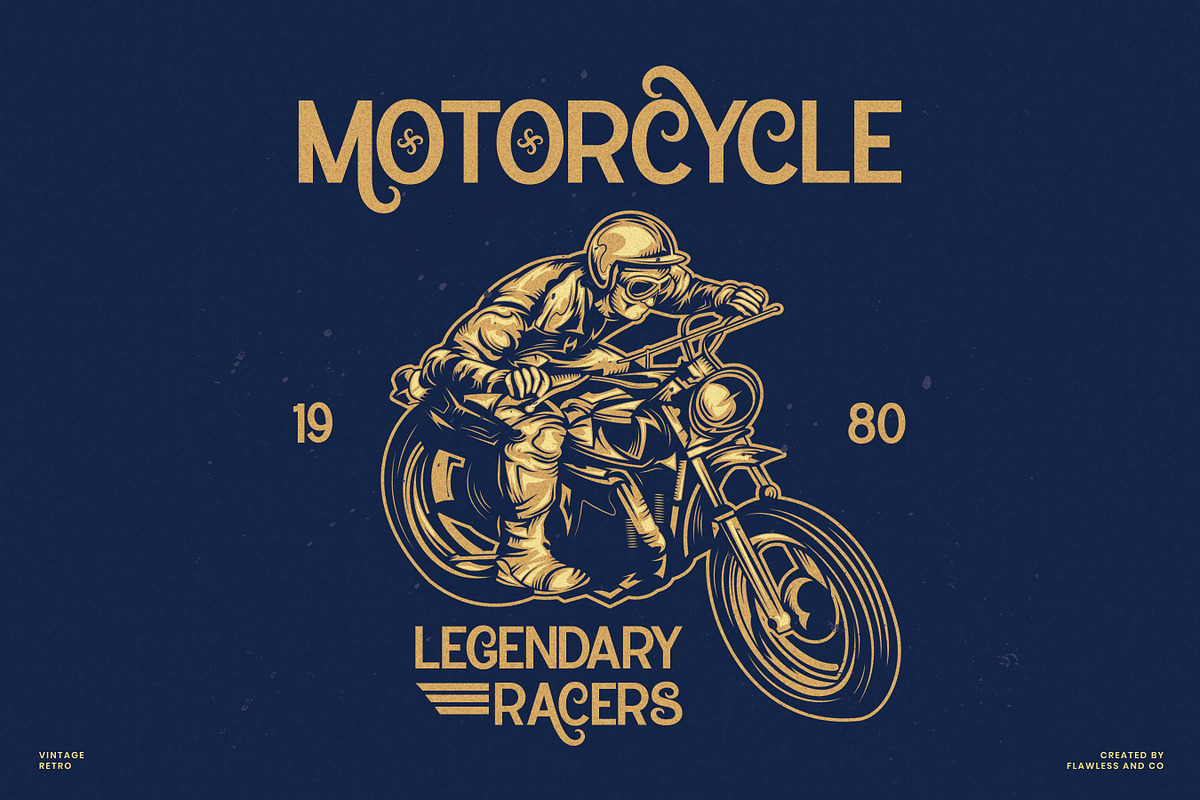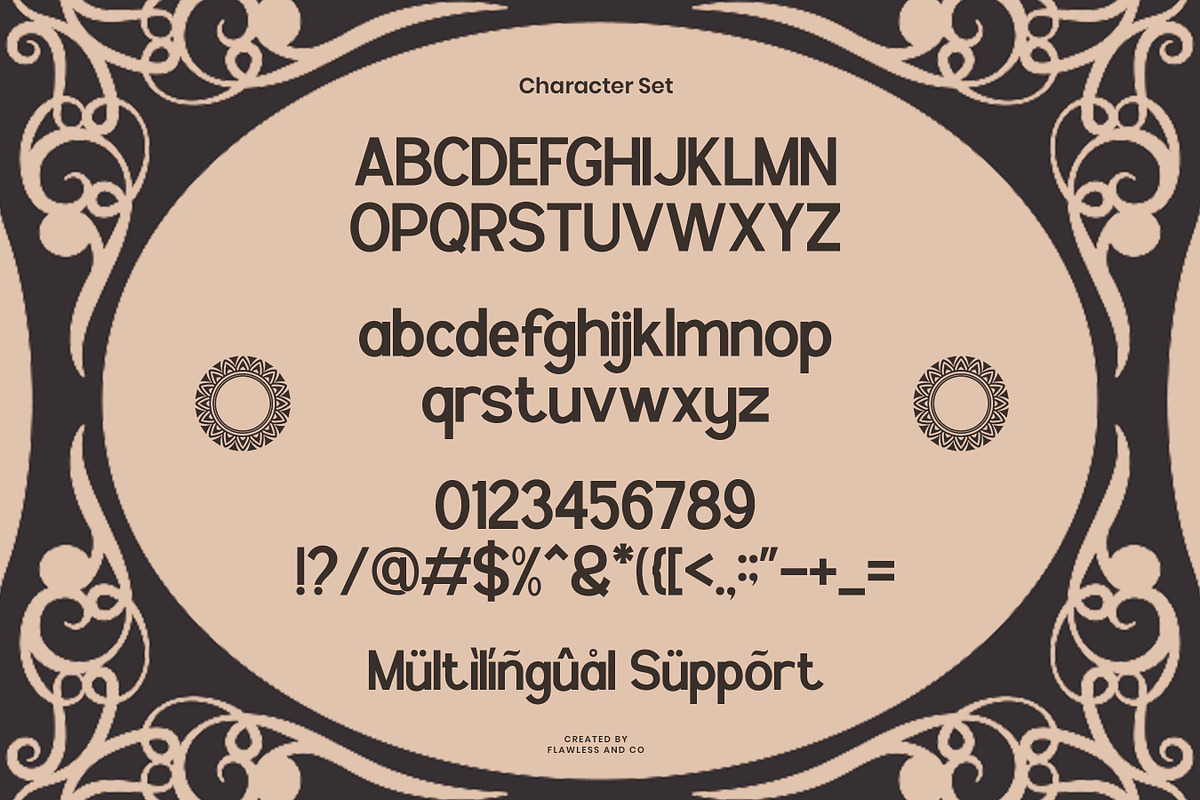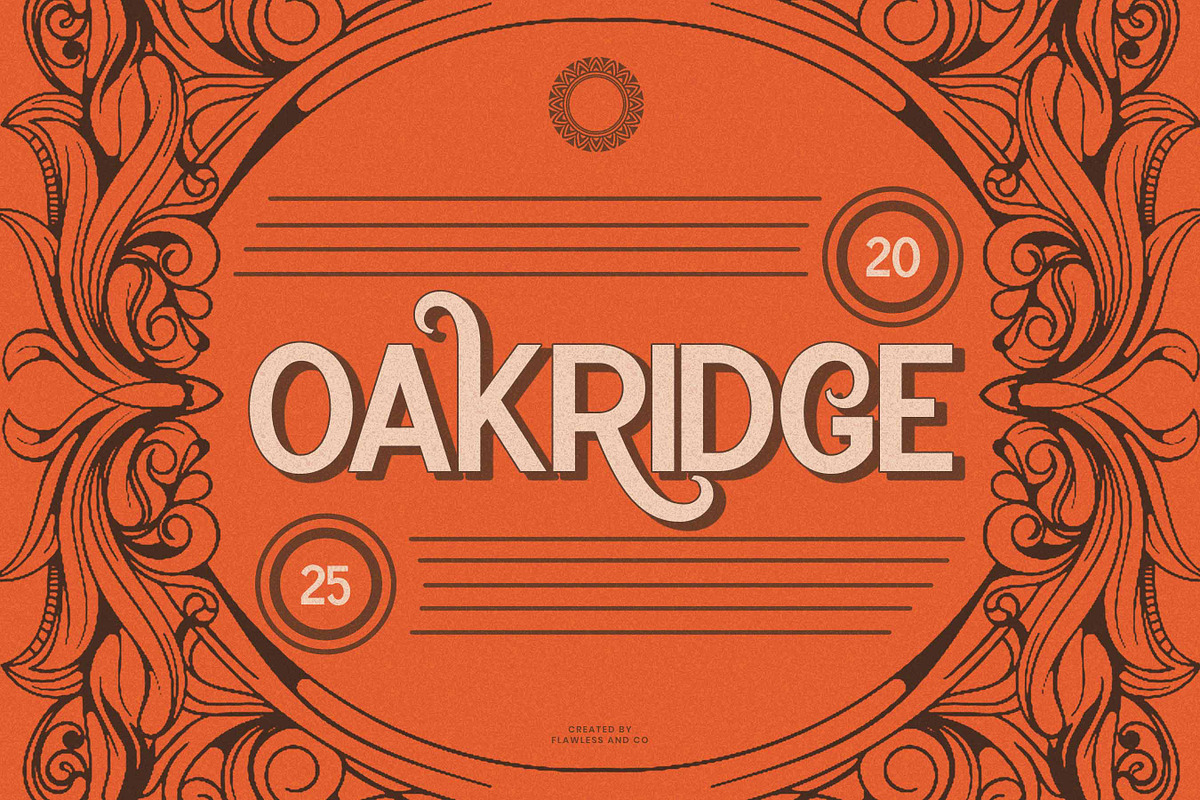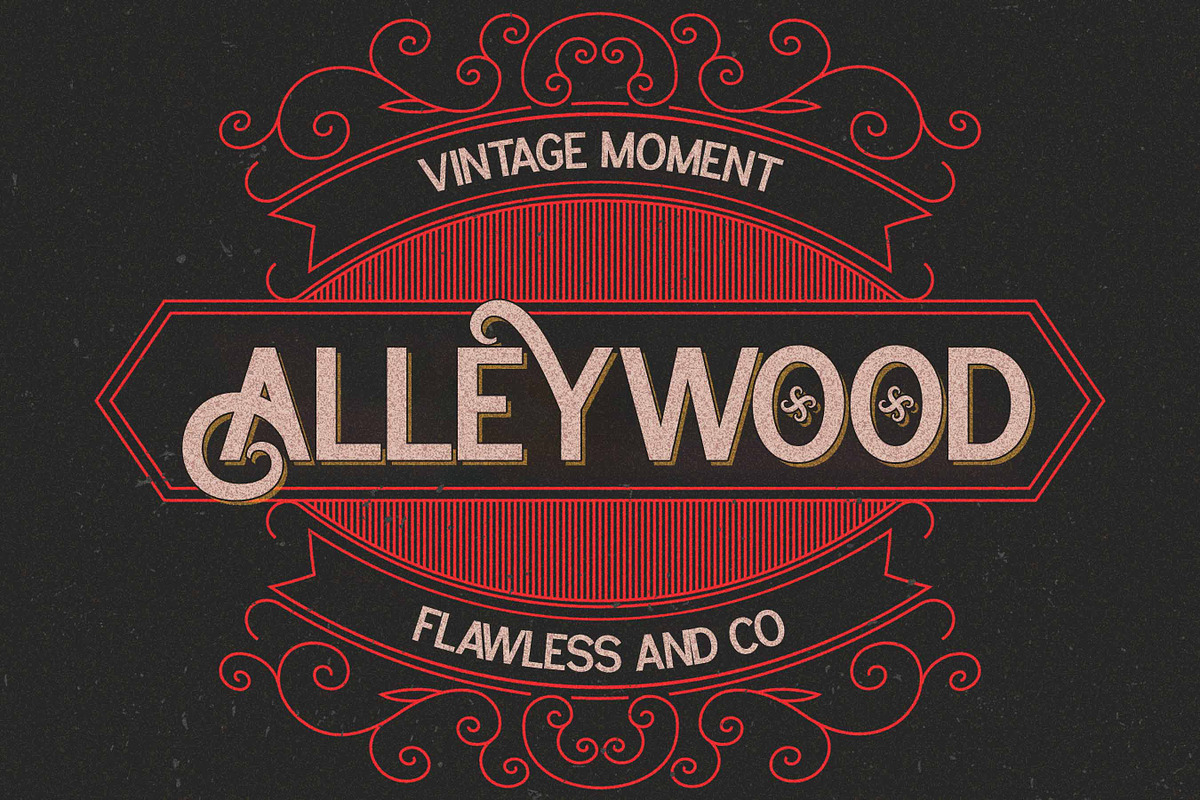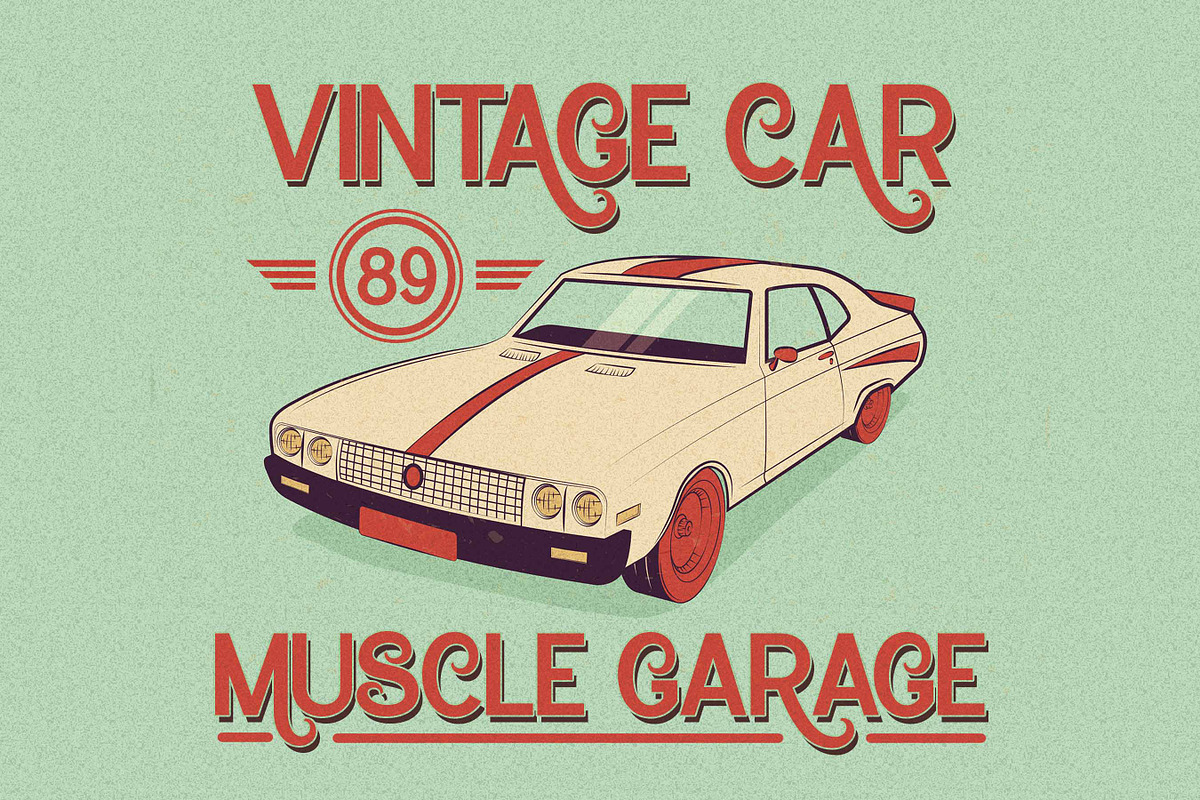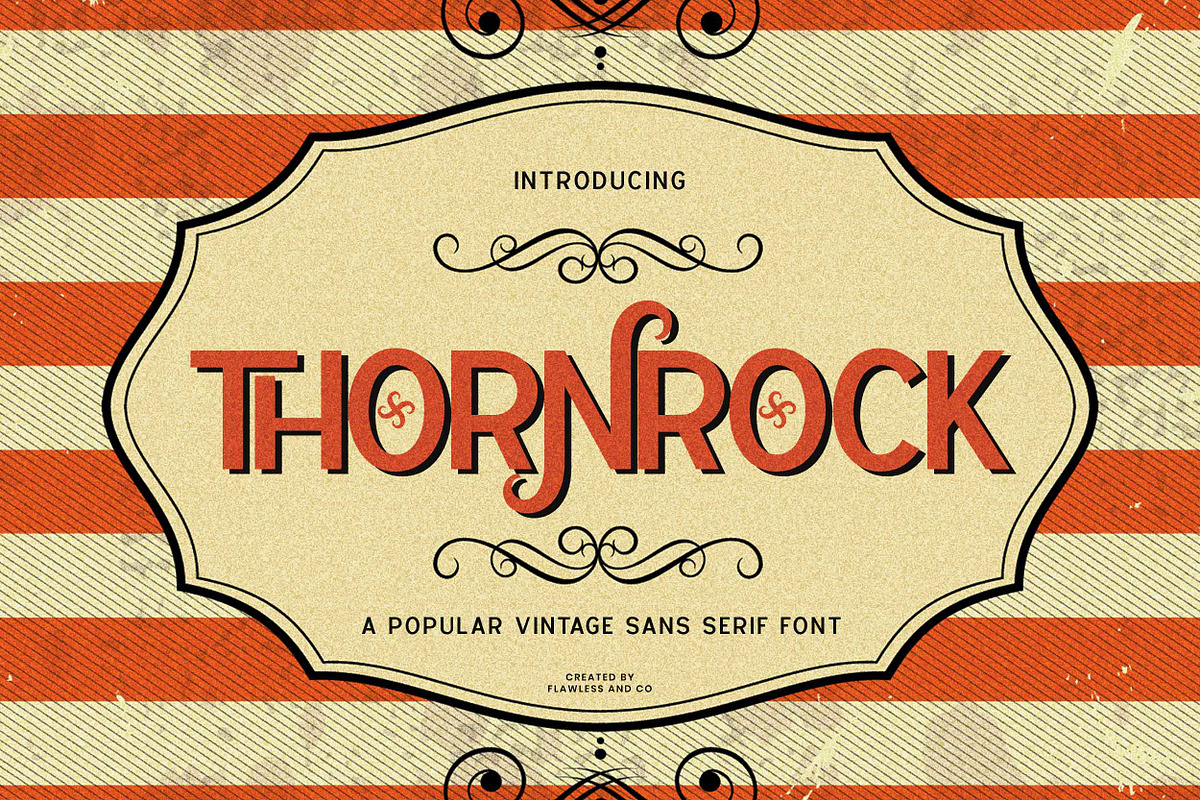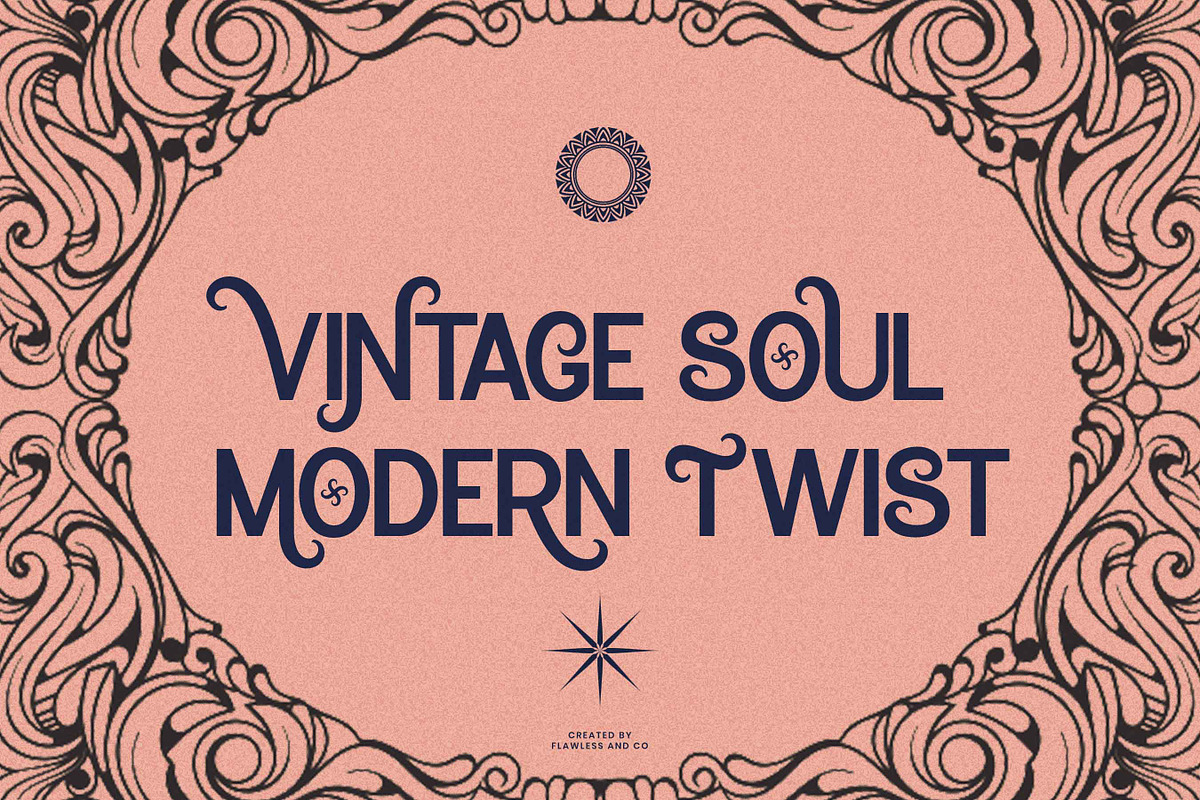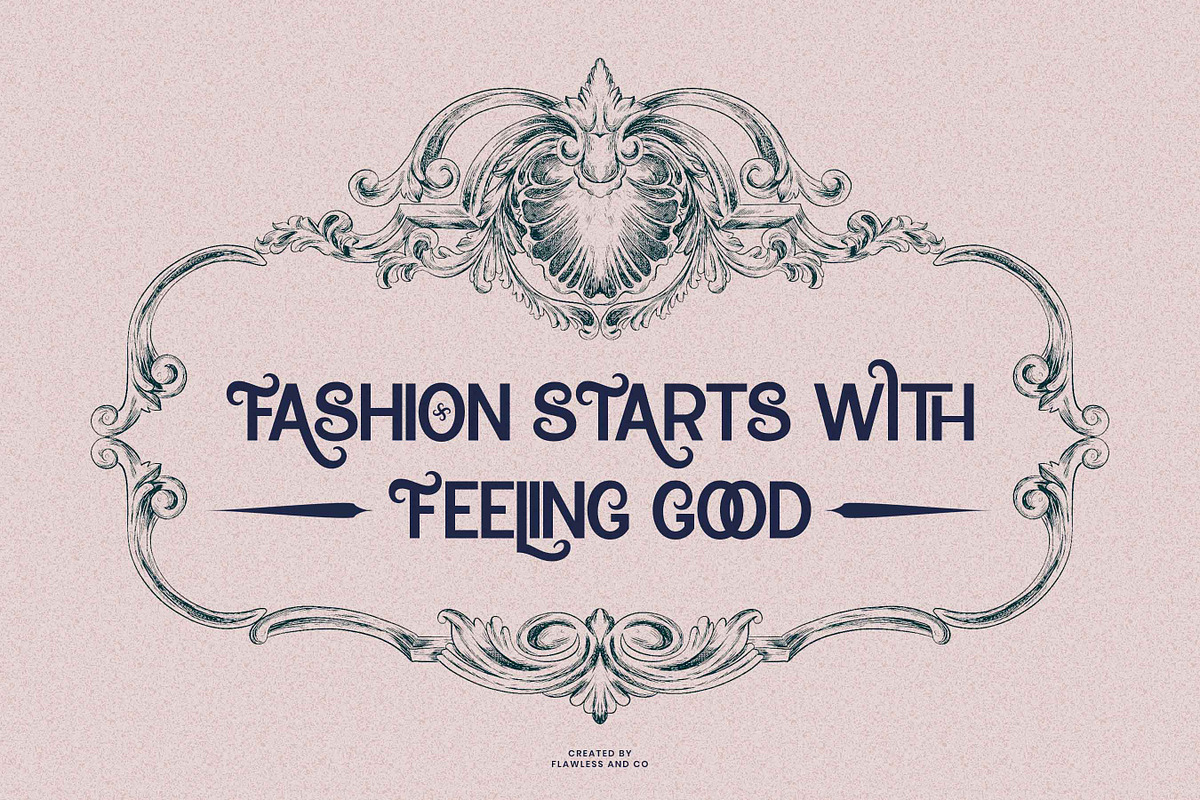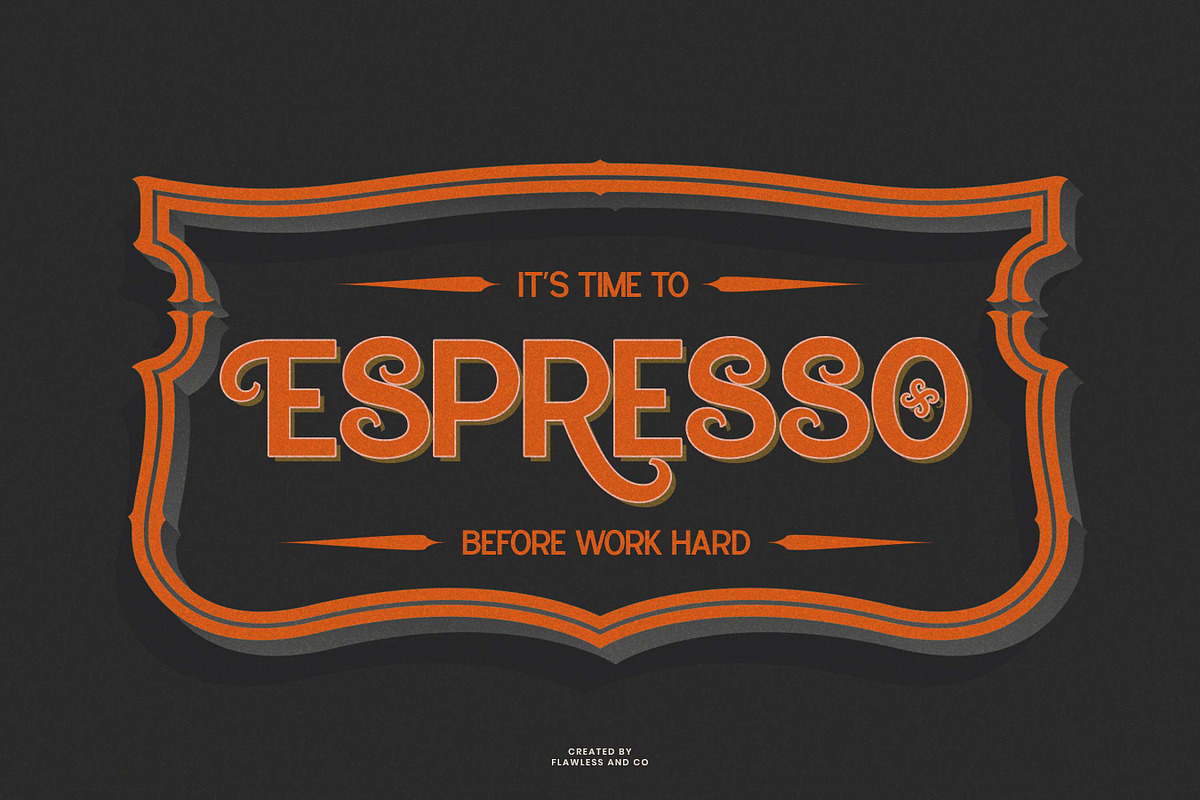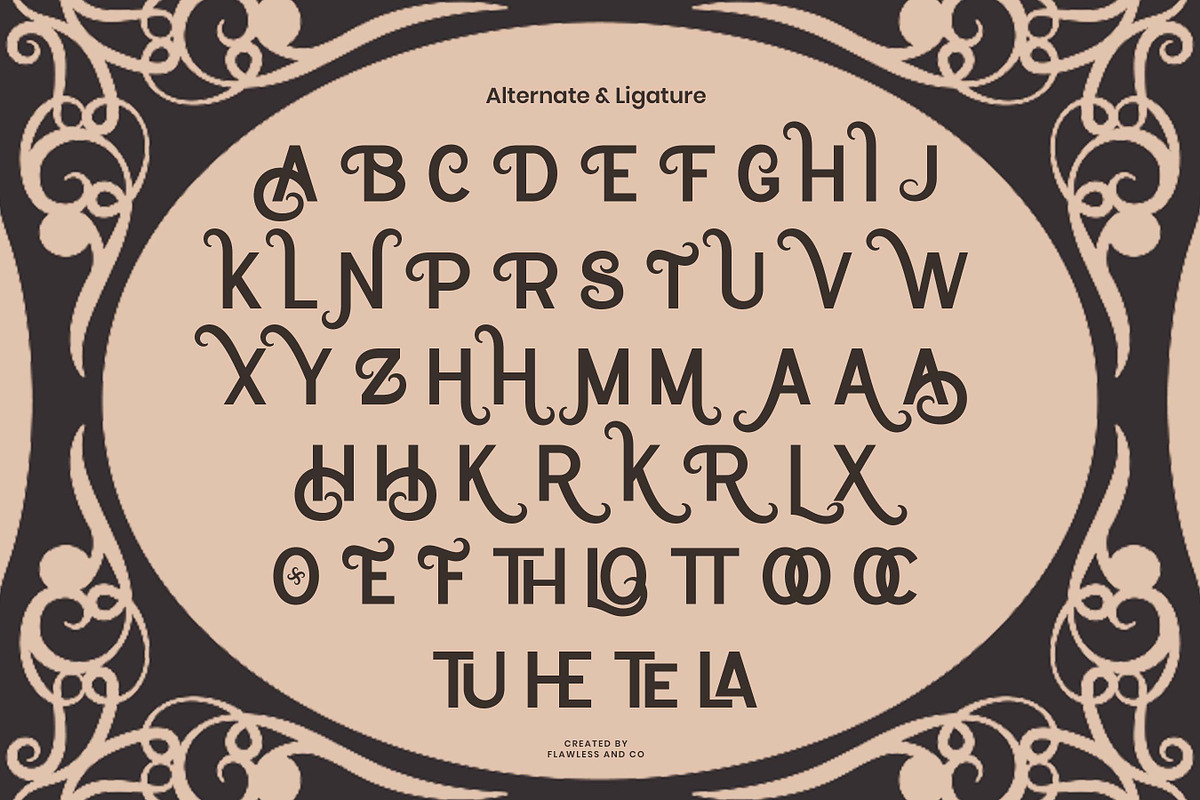
Thornrock - Vitage Sans Serif
Thornrock – A Bold Vintage Sans Serif Font
Thornrock is a rugged and charismatic sans serif font that draws inspiration from vintage signs, old-school branding, and timeless industrial design. With strong letterforms, classic proportions, and a subtly aged character, Thornrock brings a bold sense of heritage to your work. Perfect for logos, packaging, posters, apparel, and retro-inspired branding, this font combines clean sans-serif clarity with nostalgic flair. Whether you're designing a whiskey label, a barbershop logo, or a heritage-themed product line, Thornrock stands firm with style and authenticity. Its all-caps build, crisp lines, and solid structure make it a go-to choice for impactful, era-inspired typography.
- All Uppercase Letters
- Bold, Vintage-Inspired Style
- Clean Sans Serif with Retro Charm
Let Thornrock bring timeless boldness and vintage soul to every design you create.
Who Should Use THORNROCK?
Thornrock is perfect for designers, creators, and brands looking to infuse their work with bold vintage character and clean sans serif appeal. If you're working on:
- Vintage Logos for barbershops, cafés, breweries, or heritage brands
- Product Packaging that needs a retro but readable touch
- Posters & Signage with a rugged, classic vibe
- Merchandise & Apparel with timeless appeal
- Editorial or Headline Typography that demands bold presence
- Labels, Badges & Stamps that look hand-crafted and authentic
Then Thornrock is made for you. Whether you're a seasoned designer or a small business owner, this font brings strength, style, and vintage charm to your message—without compromising clarity.
A Must-Have Font for Brand and Logo Creators and Designers
Thornrock is a must-have for designers who value versatility, clarity, and bold character. Its strong sans serif structure combined with vintage charm makes it an ideal choice for logos, branding, and identity design. Whether you're crafting a rugged outdoors brand, a classic barbershop logo, or a timeless product label, Thornrock delivers a professional, memorable look that stands the test of time. Its clean lines ensure readability across all media, while its nostalgic touch adds personality and depth—making every brand mark feel both fresh and familiar.
Why Choose THORNROCK for Brand and Logo Projects?
Thornrock blends the best of both worlds: timeless vintage flair and modern sans serif simplicity. Its bold, confident letterforms command attention while remaining highly legible—ideal for logos and branding where clarity and impact are key. Thornrock’s unique charm adds character without overwhelming the design, making it versatile for various brand personalities—from heritage-inspired products to contemporary businesses seeking a classic twist. When you want your branding to feel strong, stylish, and unforgettable, Thornrock is the font that delivers.
Suitable for:
Logos & brand identity, vintage-style packaging, signage, apparel design, editorial layouts, posters, and retro-themed social media graphics—Thornrock is ideal for visuals that need a bold, nostalgic sans serif look. Whether you're designing for classic barbershops, outdoor gear brands, or timeless product labels, Thornrock adds authentic character and standout appeal to every project.